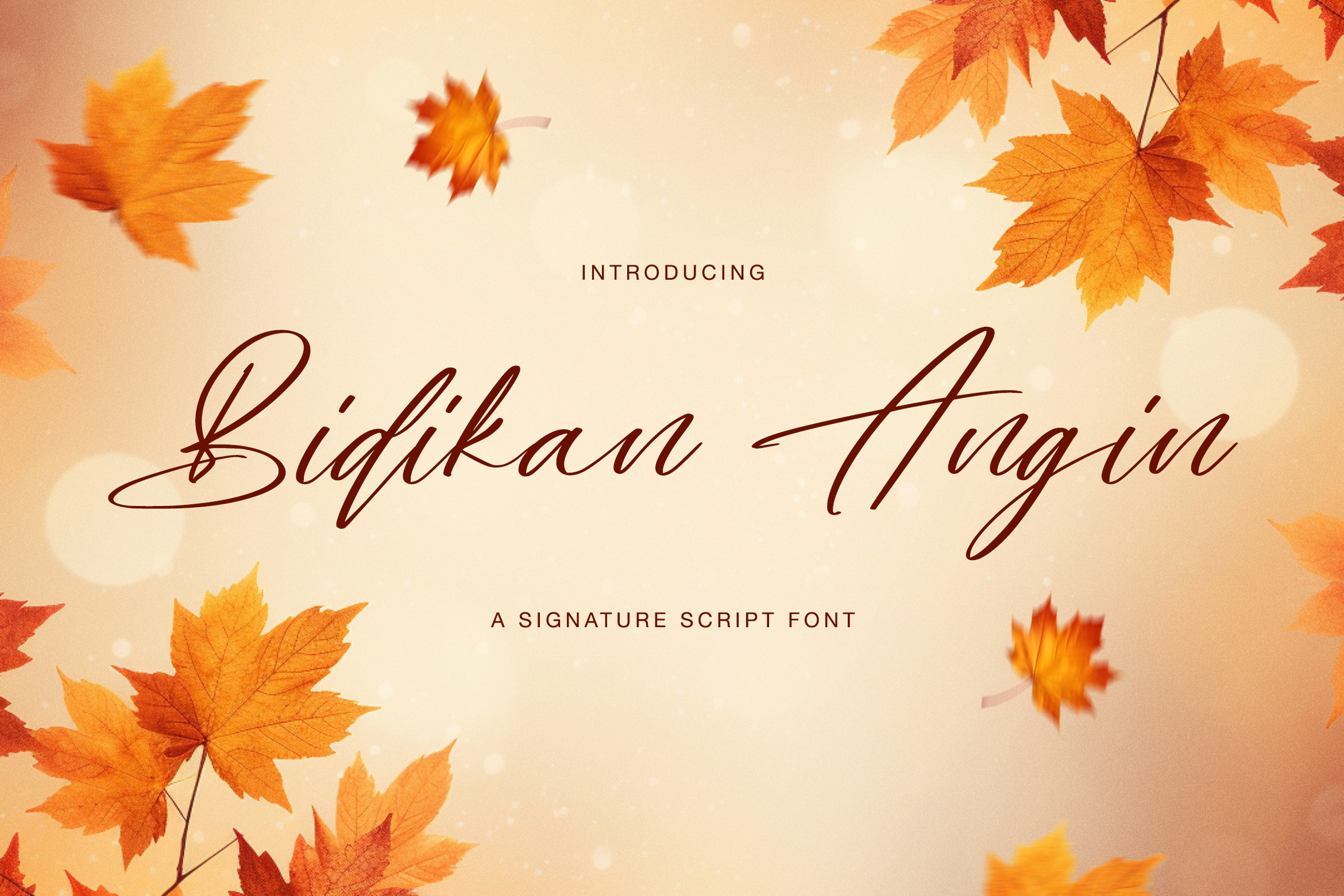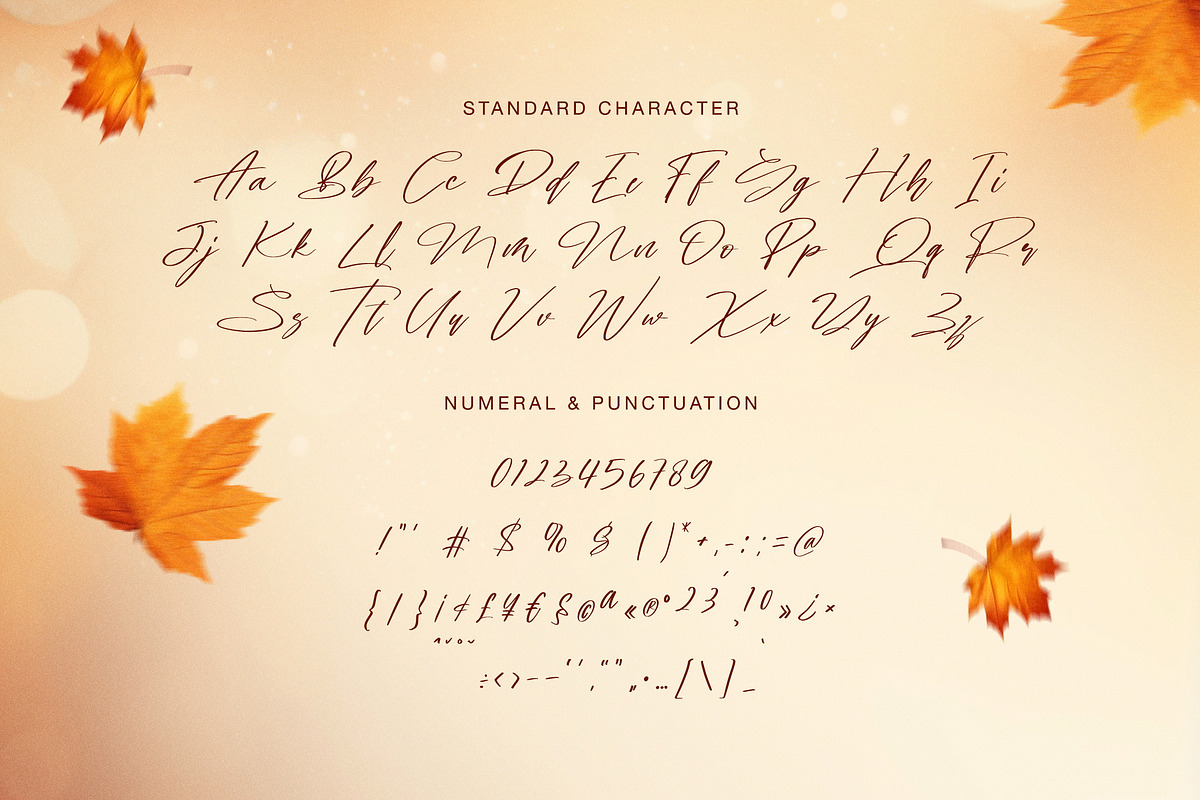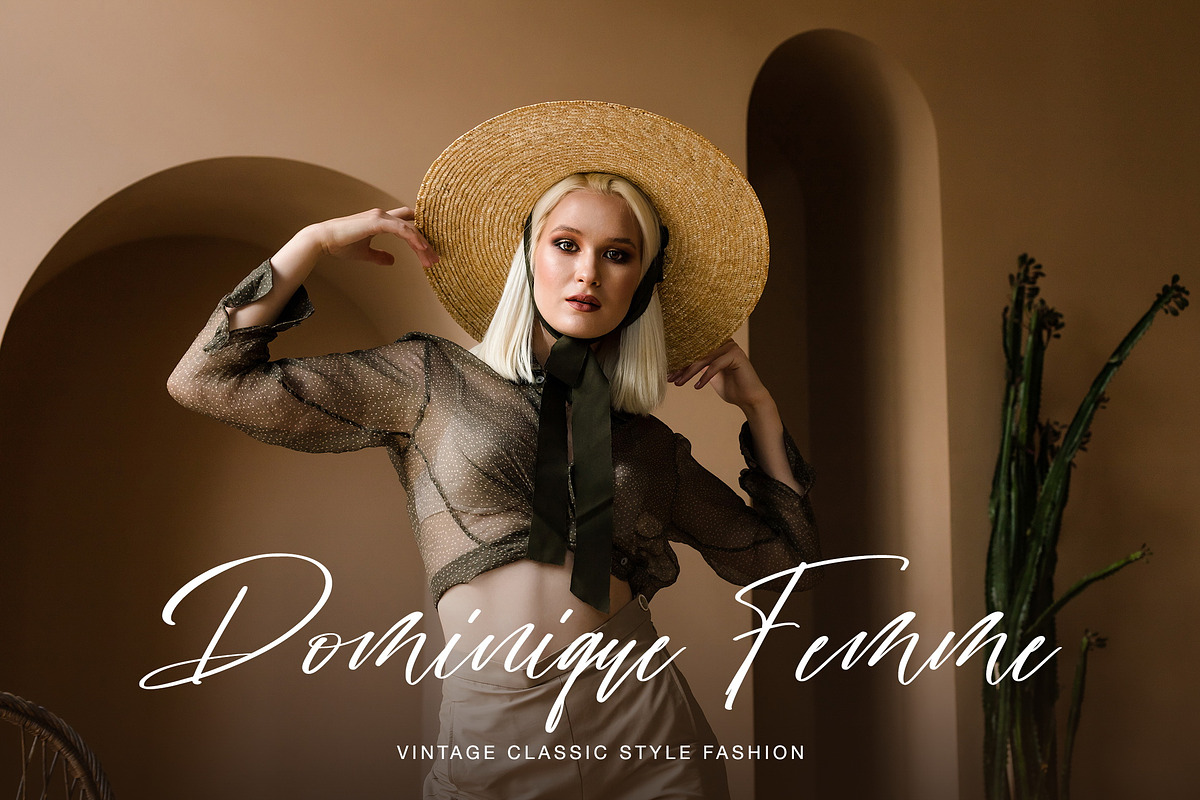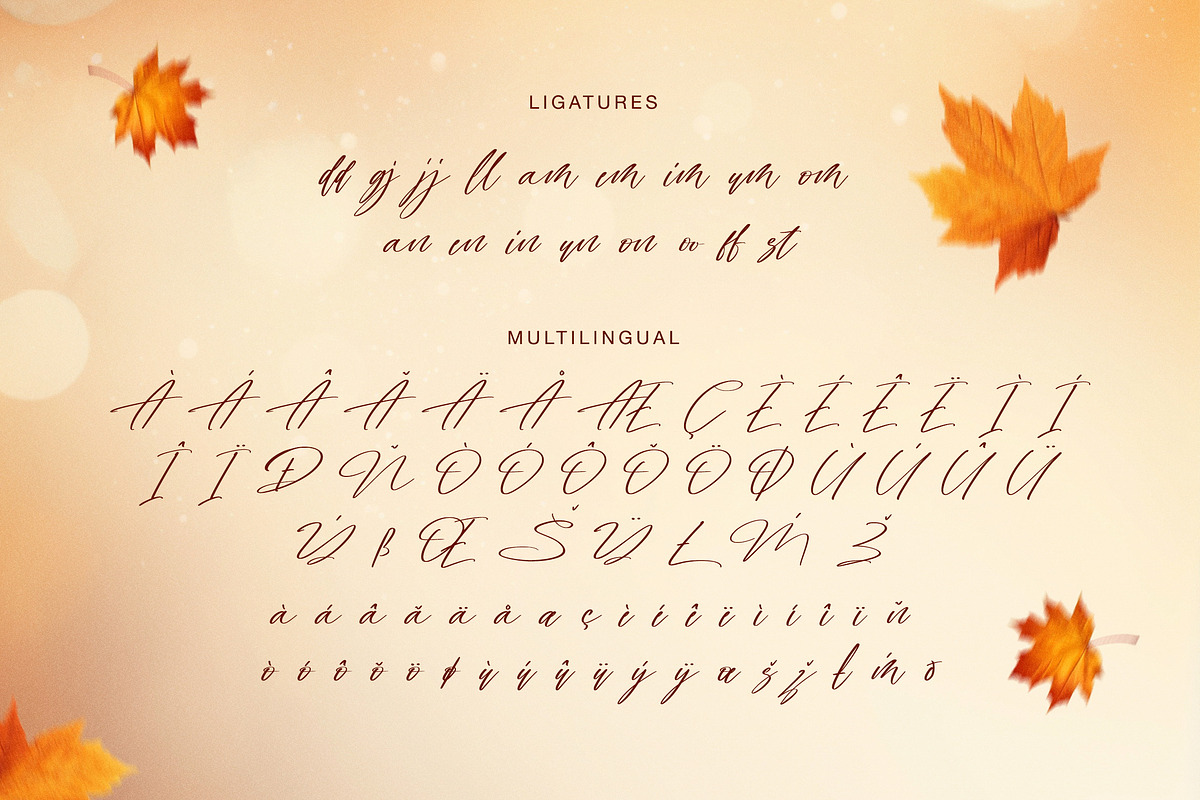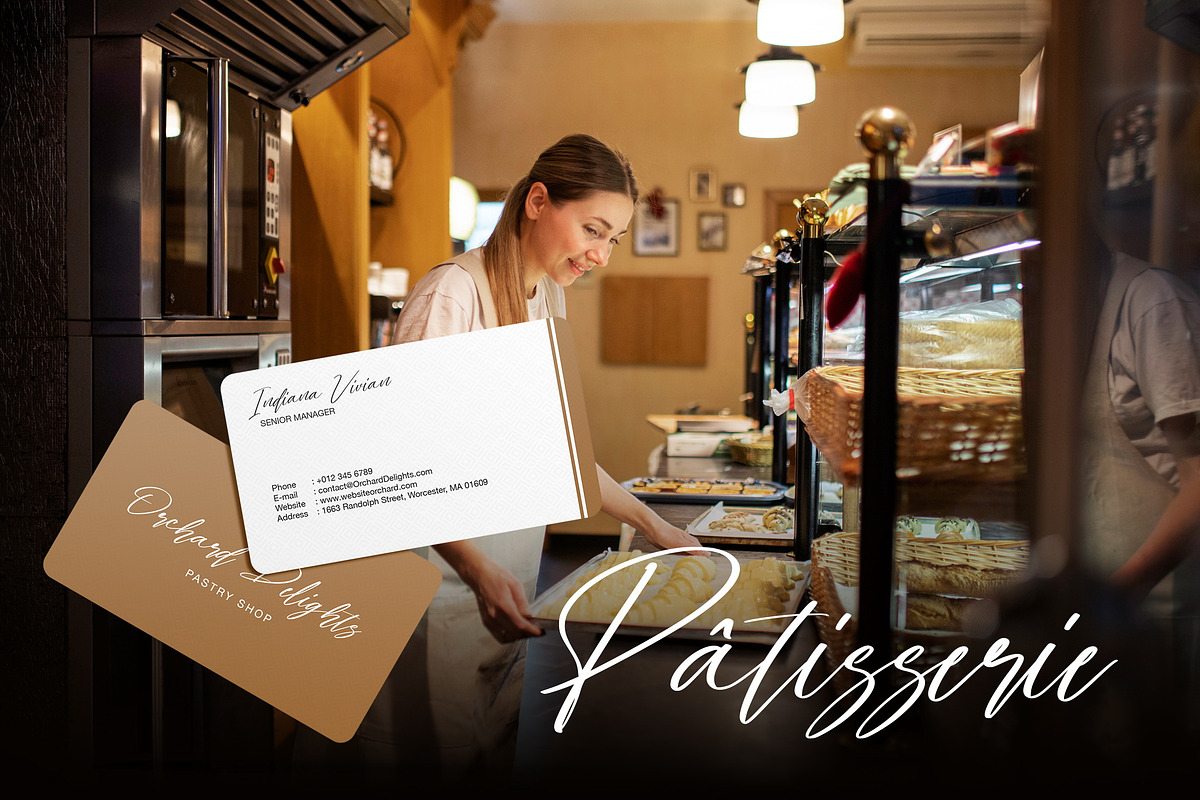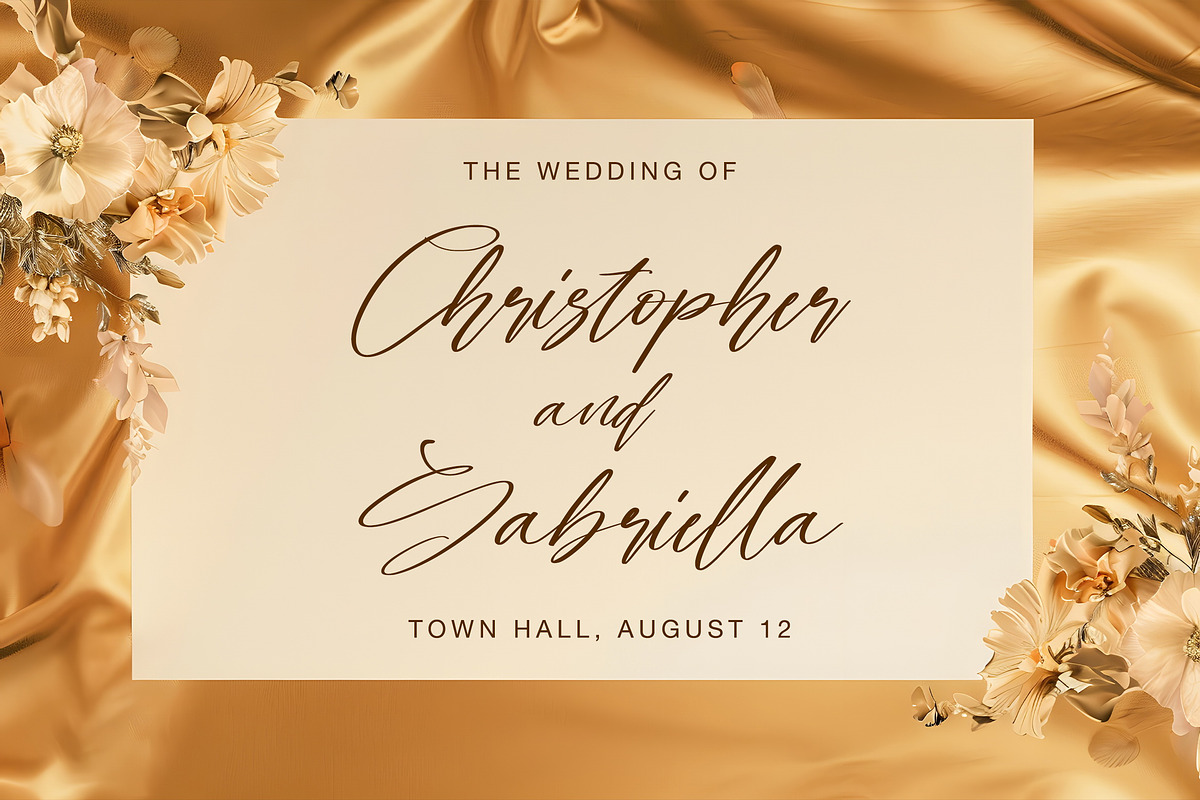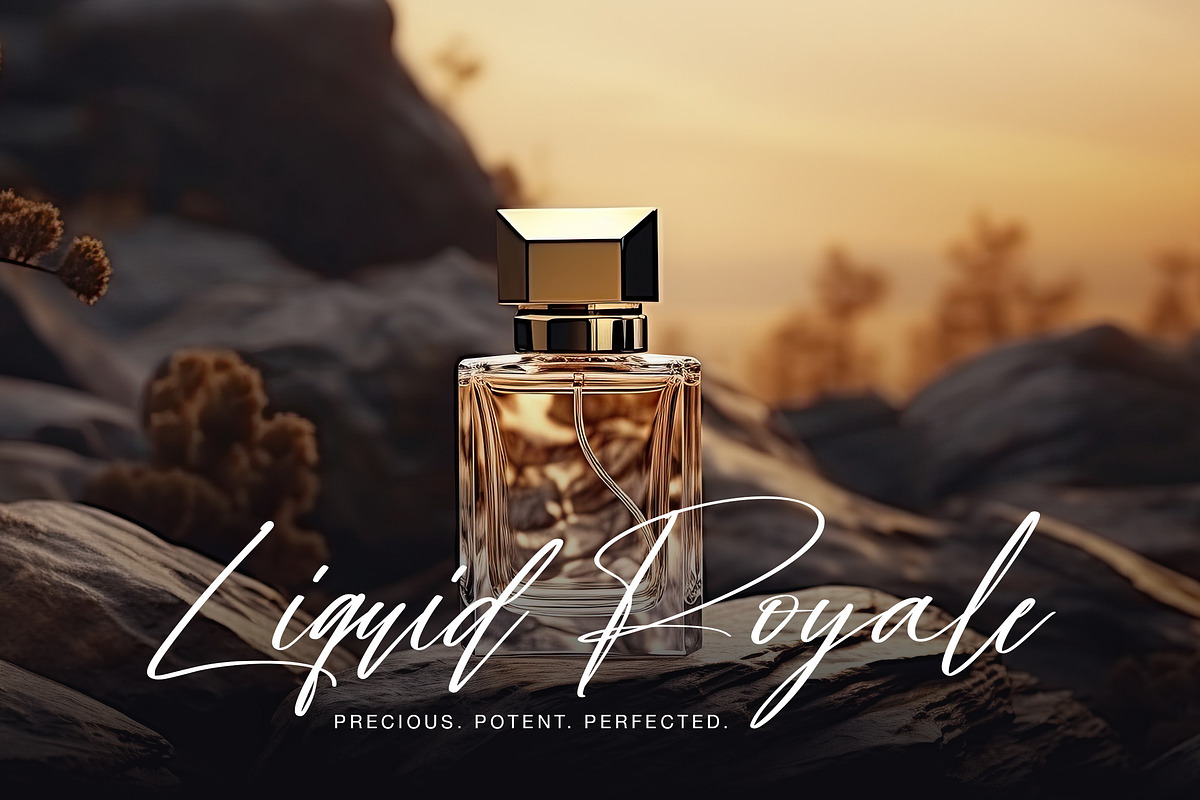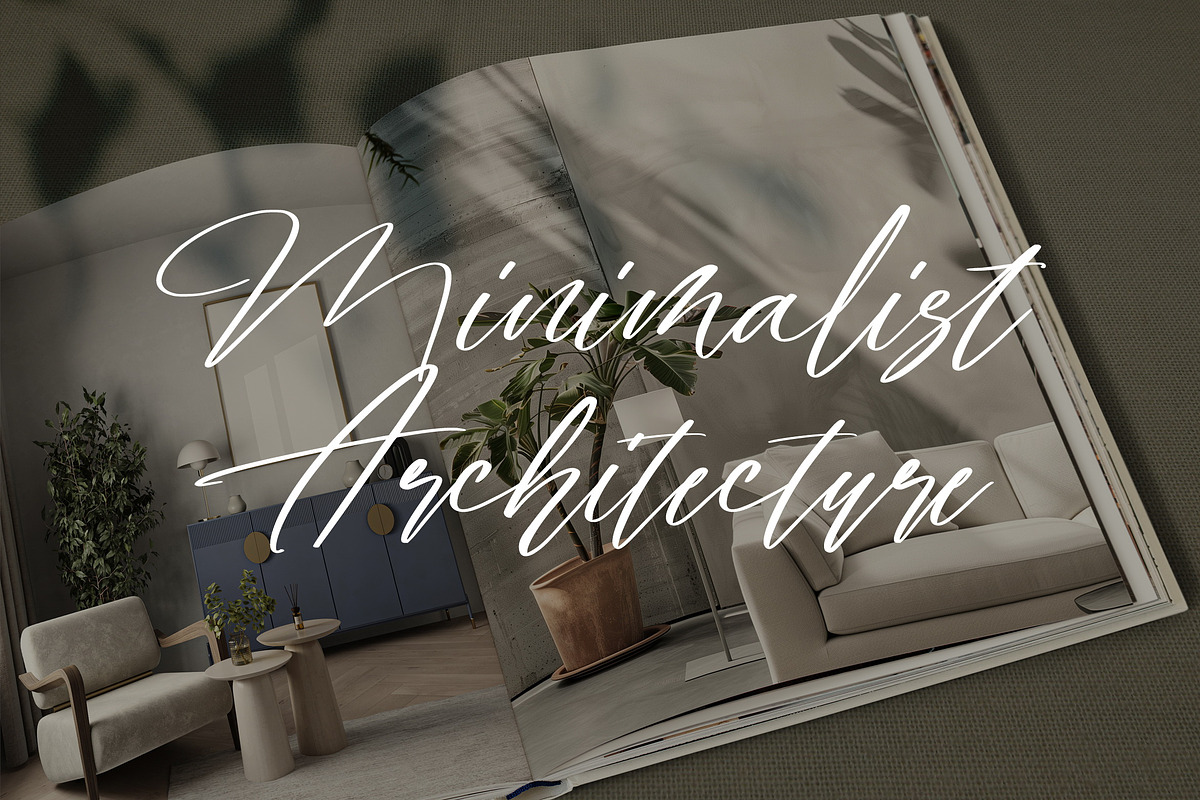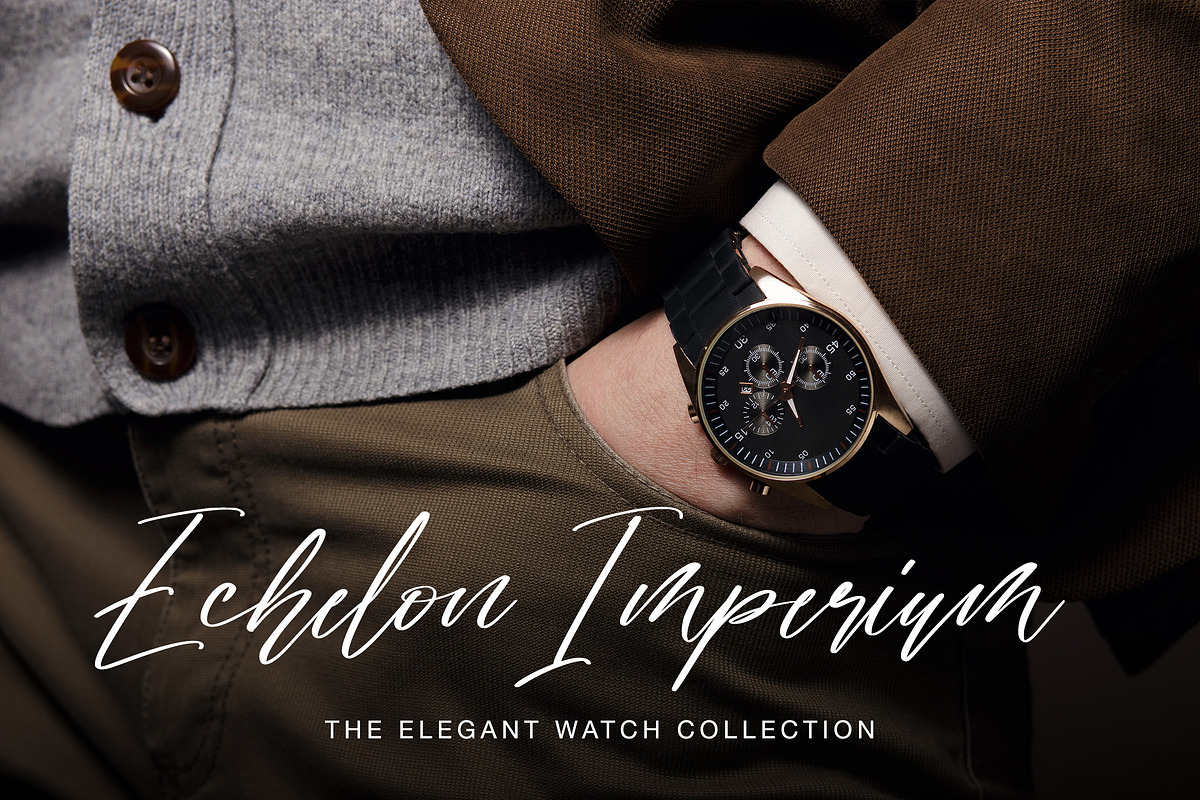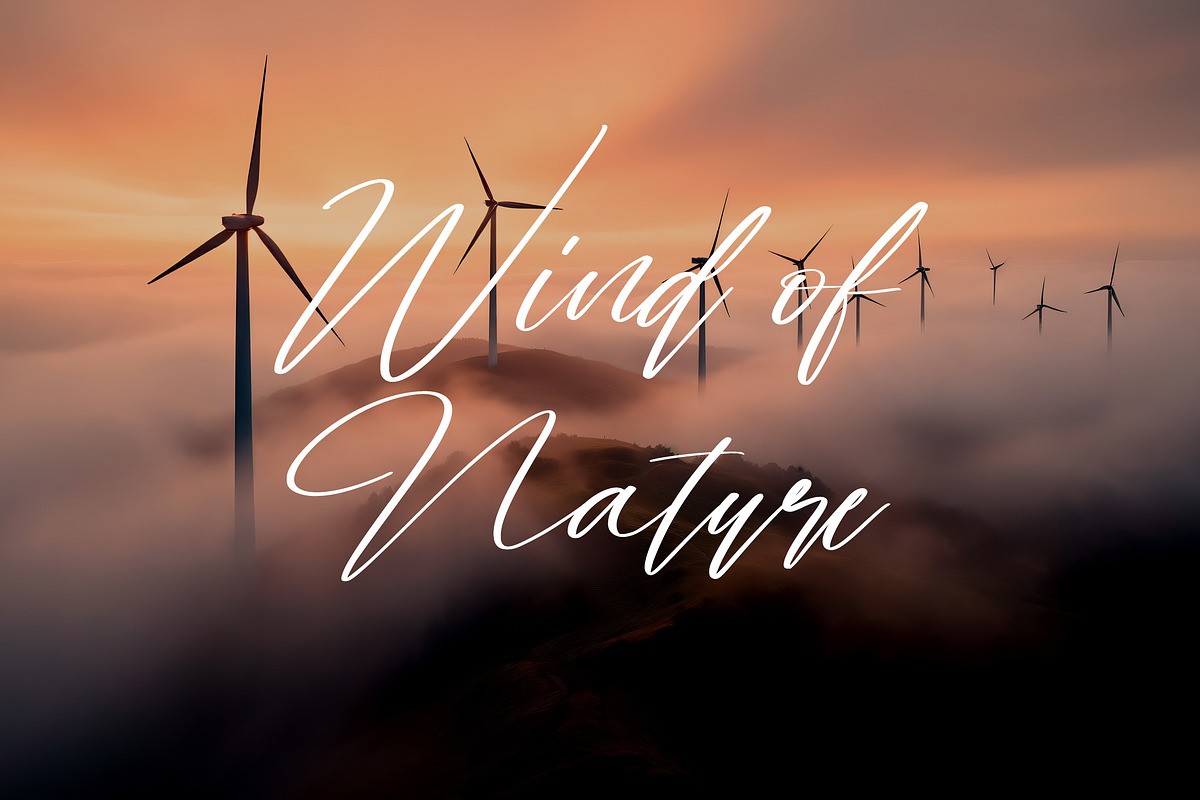
Bidikan Angin Signature Script Font
Bidikan Angin - Signature Script Font
Bidikan Angin - Signature Script Font. It evokes a gentle breeze. This signature script font dances across the page with elegant, flowing strokes, reminiscent of leaves carried by the wind. Its graceful curves and delicate lines lend a touch of natural beauty and sophistication to any design. Perfect for adding a personal and refined touch, Bidikan Angin brings a breath of fresh air to branding, invitations, and heartfelt messages.
- Uppercase & Lowercase letters
- Numeral and Punctuations